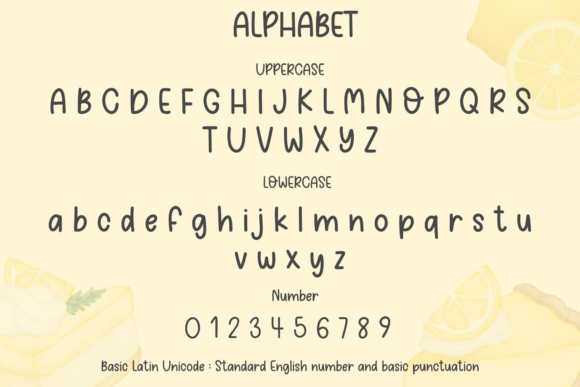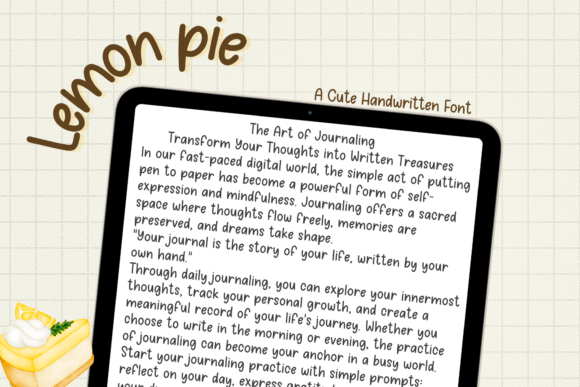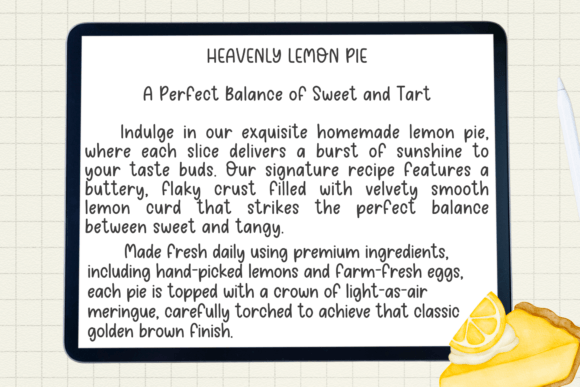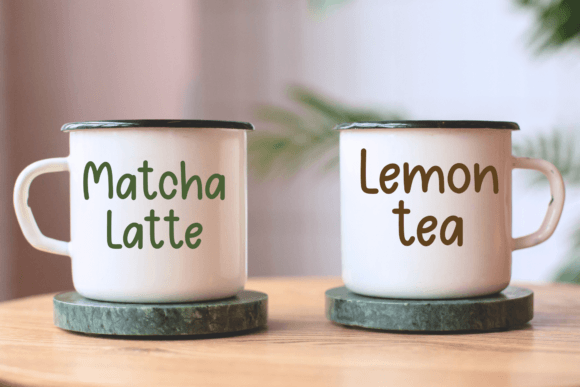
Introduction to Lemon Pie Font Font
Fonts play a crucial role in design, and the Lemon Pie Font font is a typeface that brings both character and versatility to any project. Whether you’re working on a branding project, a website, or a print design, the Lemon Pie Font font offers a unique style that can elevate your work.
Lemon Pie is a delightful handwritten font that captures a cozy and cheerful vibe.
With its rounded edges and playful design, itβs perfect for branding, recipe cards, childrenβs projects, and whimsical designs Add a touch of sweetness and charm to your creative work with Lemon Pie.
Key Features of Lemon Pie Font Font
Why Choose Lemon Pie Font Font?
The Lemon Pie Font font is more than just a typeface β it’s a design tool that helps you communicate your message with style and clarity. Its unique character set and versatile design make it suitable for a wide range of applications, from elegant invitations to bold headlines.
With its carefully crafted letterforms and balanced proportions, the Lemon Pie Font font ensures readability and visual appeal across all mediums.
What makes Lemon Pie Font font special?
The Lemon Pie Font font stands out with its unique design, exceptional readability, and versatility across various design applications.